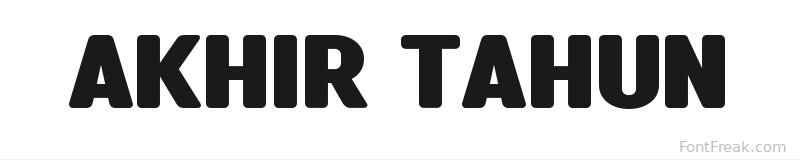
Akhir Tahun
About Akhir Tahun
The Akhir Tahun font by Wahyu Eka Prasetya is a striking display typeface that captures attention with its bold and modern aesthetic. This freeware font features a unique design that combines geometric shapes with a touch of artistic flair, making it suitable for various creative applications. The strokes are thick and consistent, giving the font a sturdy presence, while the overall spacing is well-balanced, allowing for clear readability even at larger sizes. Its decorative elements add an exciting dimension, making it ideal for projects that require a standout typographic statement.
Akhir Tahun is perfect for use cases such as eye-catching wedding invitations, dynamic movie posters, vibrant restaurant menus, and creative branding projects. Its versatility allows graphic designers and small business owners to craft visually compelling materials that resonate with their target audience. Content creators will also find this font appealing for social media graphics and promotional materials, where a modern yet approachable look is desired.
The target audience for the Akhir Tahun font includes graphic designers looking to enhance their projects with a distinctive typeface, small business owners aiming to create memorable branding, and content creators who need a font that stands out in a crowded digital landscape. The combination of its bold character and decorative nuances makes it a valuable addition to any designer's toolkit.
What sets the Akhir Tahun font apart is its ability to blend modern design sensibilities with a touch of artistic flair, making it a versatile choice for a wide range of applications. For those interested, the Akhir Tahun font free download is available, allowing users to experiment with its unique style in their creative endeavors. This font stands out not only for its visual appeal but also for its capacity to elevate any design project it graces.